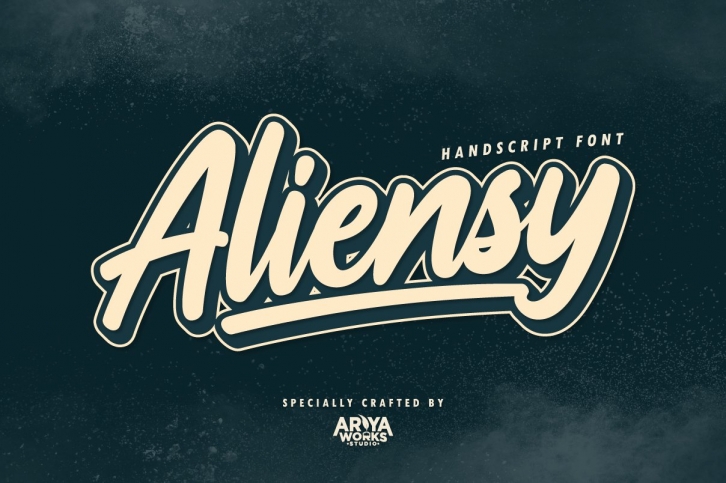
Aliensy is a trendy and unique font with an authentic style. It was designed by Ariya Works and it's a great choice for creative people who need such a font. It was released on April 15, 2021 and the file size is 15.62 MB. Aliensy will add an organic vibe to any design idea!